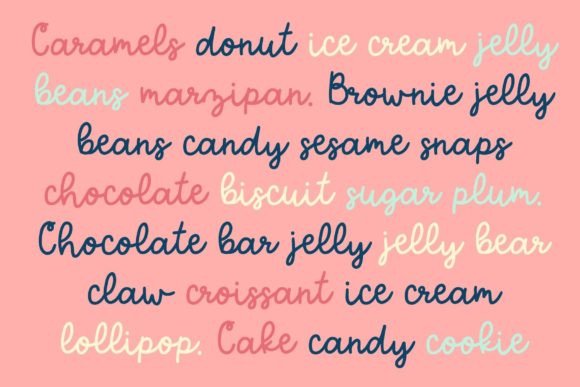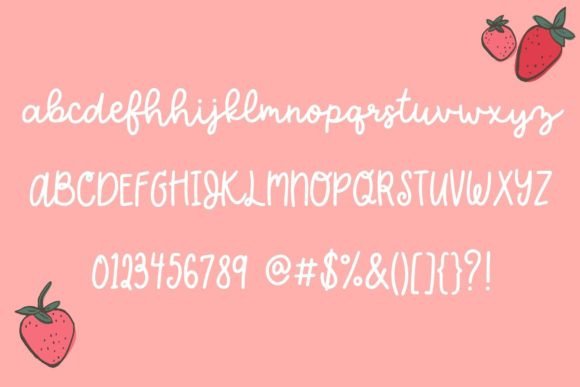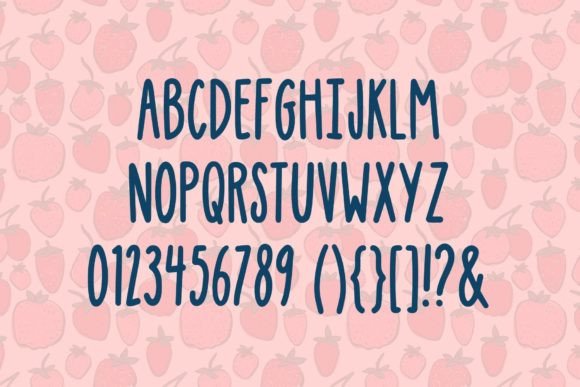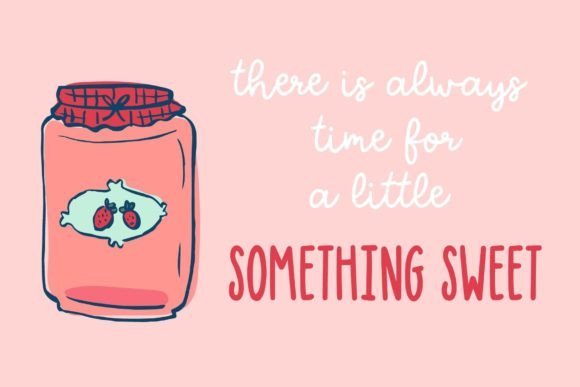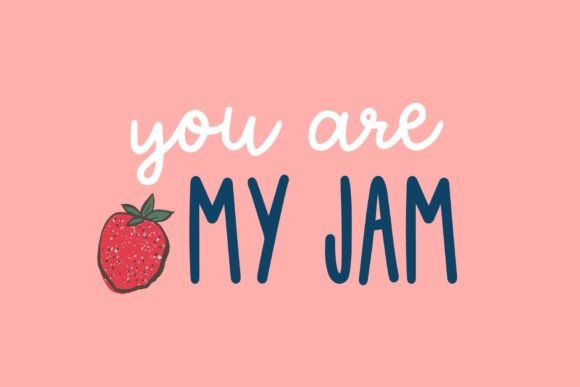
Biscuits & Jam Font: The Perfect Pairing for Your Design Needs
Are you a designer or crafter looking for a unique and stylish font duo to elevate your creative projects? Look no further than Biscuits & Jam, a playful pairing of sweet script and fun sans serif fonts. This versatile font combination is perfect for a wide range of industries and design applications, from authors and bakeries to fashion and wedding designs.
The Biscuits & Jam Font Duo: A Match Made in Heaven
The Biscuits & Jam font duo consists of two distinct fonts that, when paired together, create a harmonious and stylish feel. The sweet script font adds a touch of elegance and sophistication, while the fun sans serif font brings a playful and modern edge. This contrasting combination allows designers to create visually appealing and engaging designs that capture the attention of their audience.
Endless Design Possibilities with Biscuits & Jam
One of the best things about the Biscuits & Jam font duo is its versatility. These fonts can be used in a variety of design applications, including:
- Authors and Publishers: Create eye-catching book covers, titles, and headings that will make your literary works stand out.
- Bakeries and Cafés: Design delicious-looking menus, signage, and packaging that will make your customers’ mouths water.
- Cosmetics and Fashion: Add a touch of elegance and sophistication to your branding, packaging, and advertising materials.
- Craft and Homeware: Create charming and rustic designs for your handmade products, labels, and packaging.
- Movie and Printing: Use Biscuits & Jam to create captivating titles, posters, and print materials that will leave a lasting impression.
- Restaurant and Wedding: Design beautiful menus, invitations, and signage that will make your events and establishments unforgettable.
- School and Education: Create engaging and fun educational materials, such as worksheets, posters, and presentations.
Why Choose Biscuits & Jam Font?
So, what makes Biscuits & Jam font duo a top choice for designers and crafters? Here are just a few reasons:
- Unique and Stylish: The Biscuits & Jam font duo offers a fresh and modern take on traditional font combinations.
- Playful and Versatile: These fonts can be used in a wide range of design applications, from playful and fun to elegant and sophisticated.
- Easy to Read: The sans serif font is clear and easy to read, making it perfect for body text and captions.
- Customizable: The Biscuits & Jam font duo can be easily customized to fit your design needs, from adjusting font sizes to adding effects.
Tips and Tricks for Using Biscuits & Jam Font
To get the most out of the Biscuits & Jam font duo, here are some tips and tricks to keep in mind:
- Mix and Match: Experiment with different font sizes, styles, and combinations to create visually appealing designs.
- Use Contrast: Take advantage of the contrasting styles of the two fonts to create visual interest and hierarchy.
- Add Texture and Patterns: Add texture and patterns to your designs to give them a more organic and handmade feel.
- Experiment with Colors: Try out different color combinations to find the perfect match for your brand or design.
In conclusion, the Biscuits & Jam font duo is a versatile and stylish pairing that can elevate any design project. With its unique and playful combination of sweet script and fun sans serif fonts, this font duo is perfect for designers and crafters across various industries. Whether you’re creating book covers, menus, branding materials, or educational resources, Biscuits & Jam font is sure to impress. So why wait? Download Biscuits & Jam font today and start creating stunning designs that will leave a lasting impression!